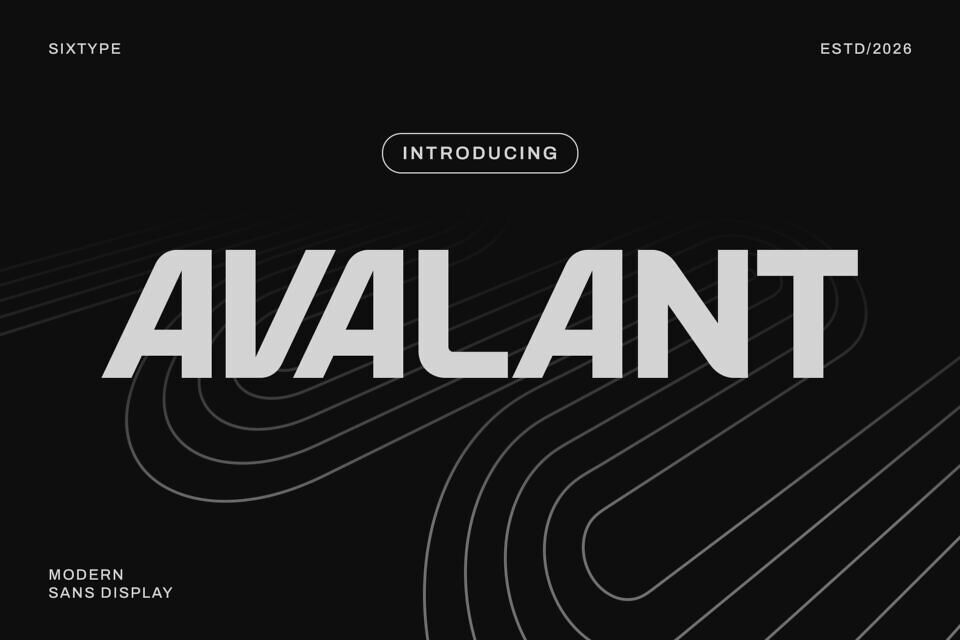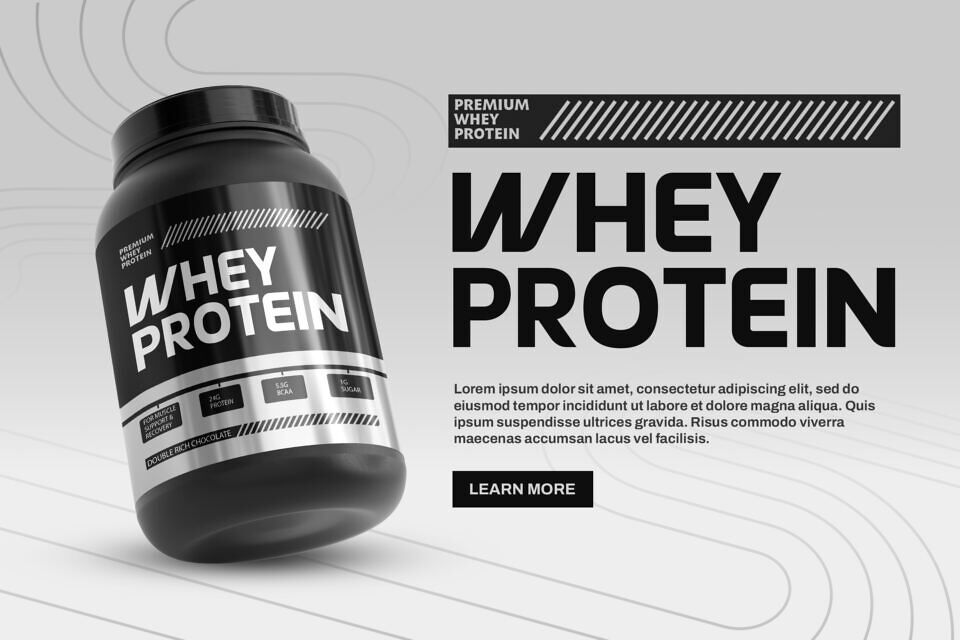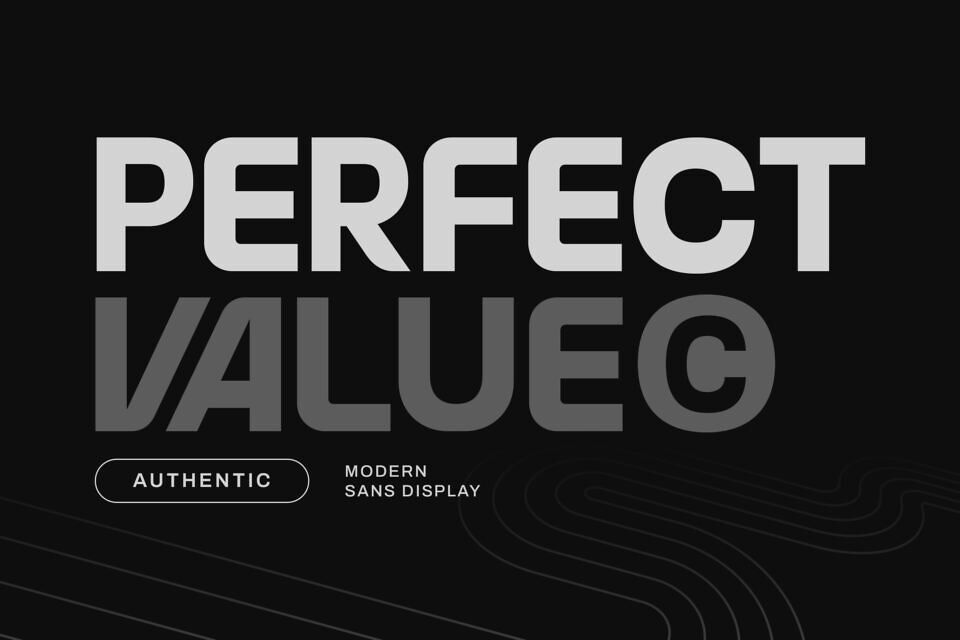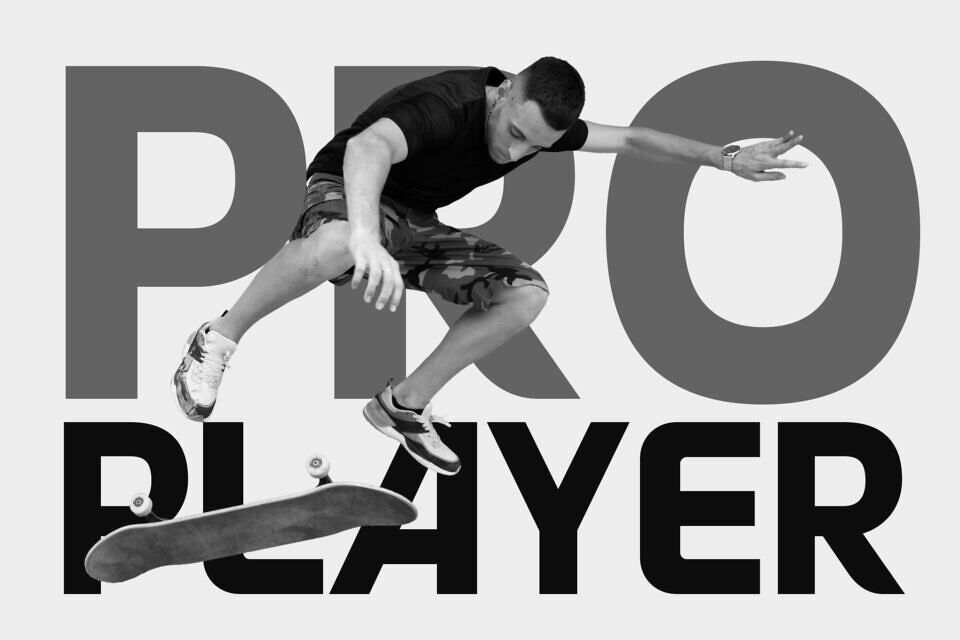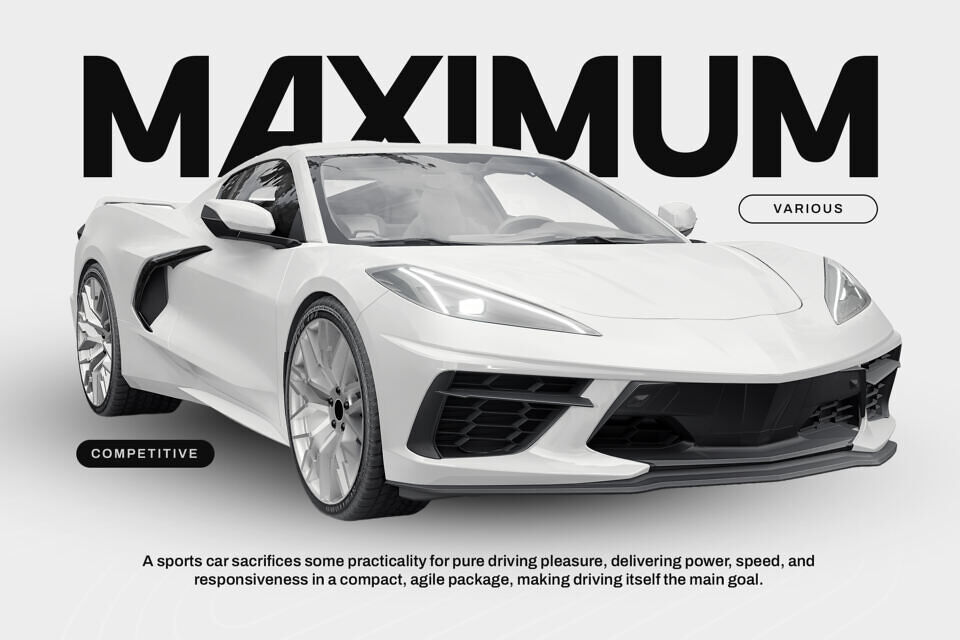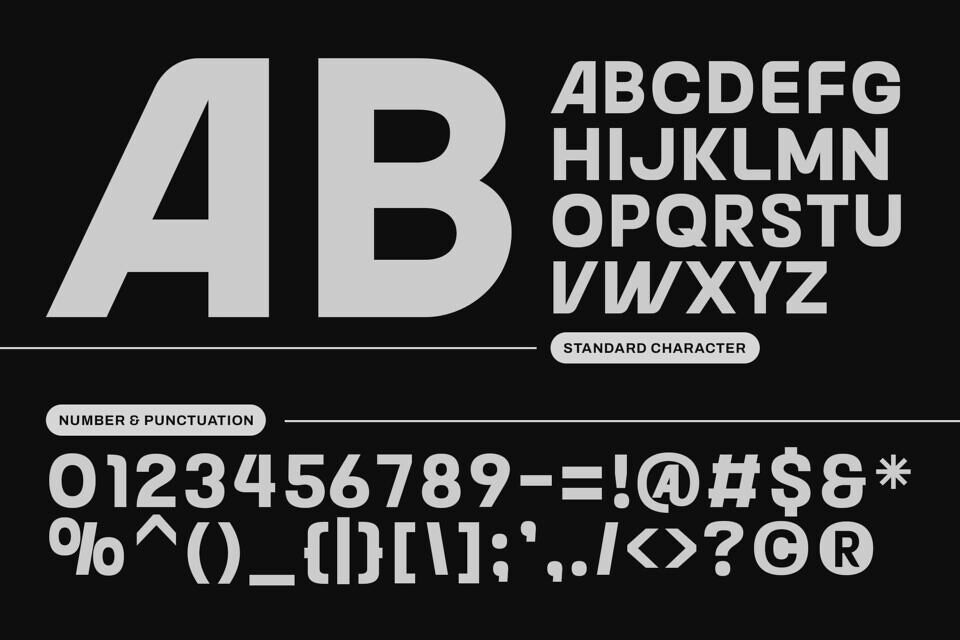
Avalant Font
Avalant is a modern sans display font characterized by its clean geometry, robust structure, and confident presence. With bold strokes and balanced proportions, Avalant offers a sleek, contemporary appearance that is both professional and expressive. The letterforms are sharp, clear, and highly legible, making this font perfect for impactful headlines and modern visual systems.